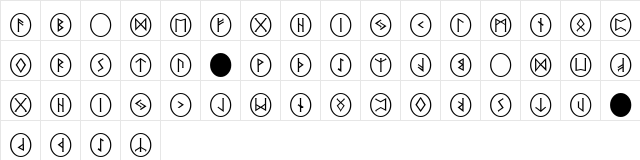
PR_Runestones_2 Normal
Design Context for PR_Runestones_2 Typeface
PR_Runestones_2 is a composed and adaptable typeface that performs quietly and consistently across a wide range of design contexts.